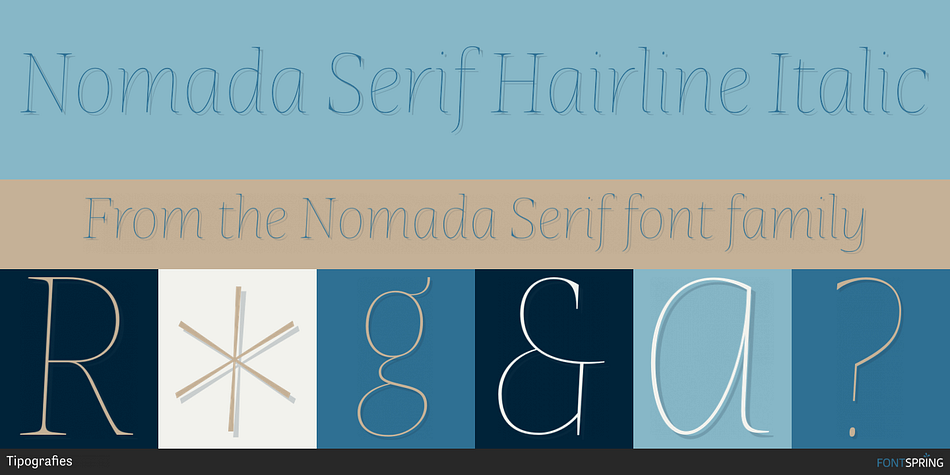
Designed by Jordi Embodas, Nomada Serif is a serif font family. This typeface has eighteen styles and was published by Tipografies.
Nomada Serif Hairline Italic
Nomada Serif has a very particular appearance. It combines the characteristics of different genres; most notably the upright stress of neo-baroque types with the reduced contrast of humanist serif faces. While its design is influenced by these historical models, its proportions give Nomada Serif an undeniably modern appearance.
The nine weights of Nomada Serif from Hair to Extrablack with italics match the corresponding weights of the other families. Clear yet modest serifs, a large x-height, short ascenders and descenders, and open character shapes make Nomada Serif a versatile, compact text face.
The light and black weights – as well as the almost upright italics – can lend their charm to titles, headings, pull quotes and more.